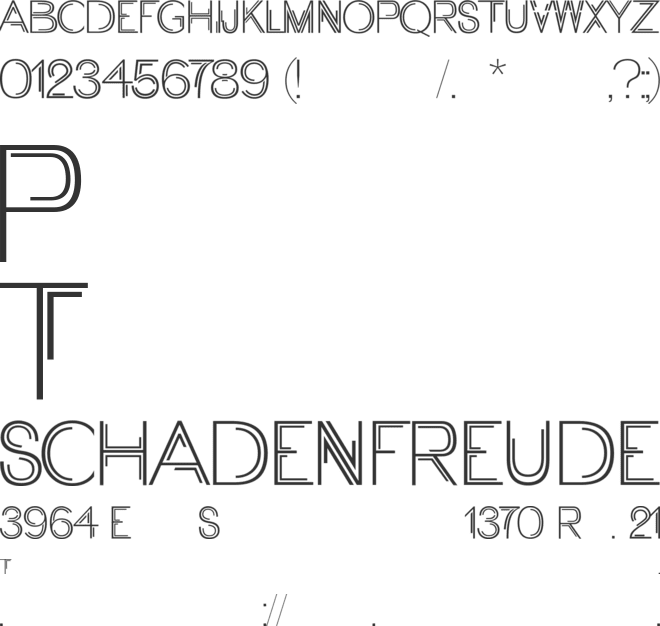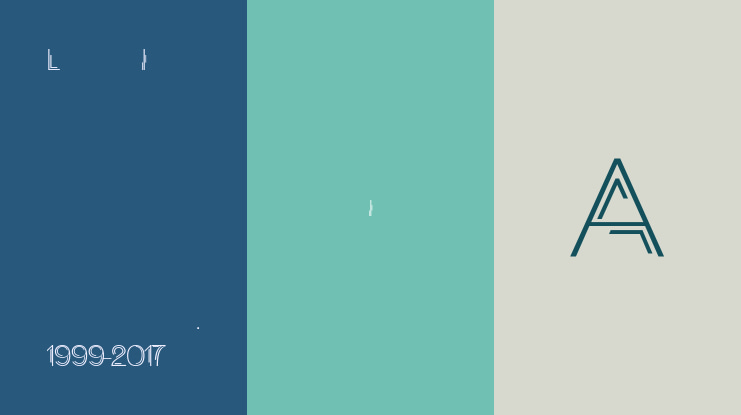
🎨 Font Name: CORKE by Minimalist Art Studio
🎨 Font description: Corke is a playful sans serif with 572 glyphs and multilingual support—perfect for creative branding, kids’ packaging, and cheerful editorial design.
✔ Complete Latin set + multilingual diacritics
✔ Alternates, stylistic sets & ligatures
✔ Numbers, small caps, and extended punctuation
✔ Bonus italics and family styles